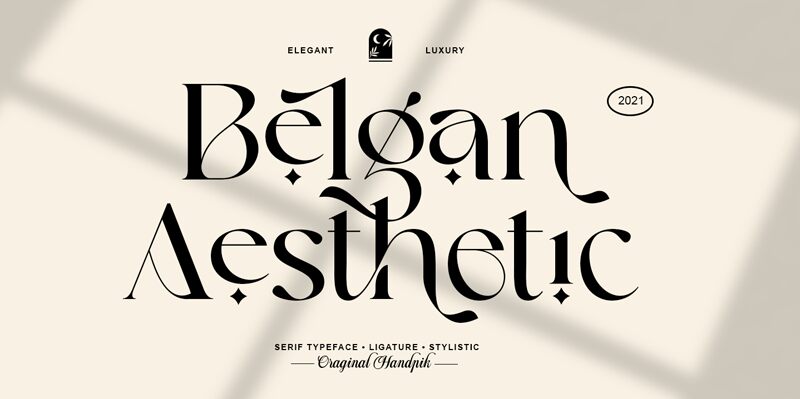
Belgan Aesthetic Regular
The Belgan Aesthetic font by Handpik is the perfect choice for creating a luxurious and sophisticated ambiance. Its semi-light serif style adds a beautiful, classic touch to all kinds of projects. From wedding invitations to corporate branding, this font will make any design project stand out. Its elegant lines also make it ideal for fashion magazines or restaurant menus. Let Belgan Aesthetic bring a touch of sophistication to your work today!